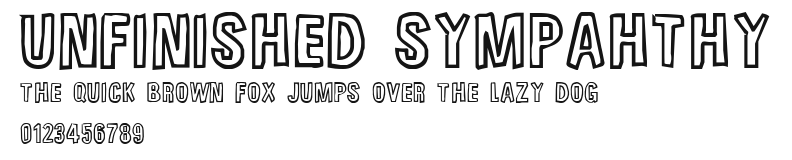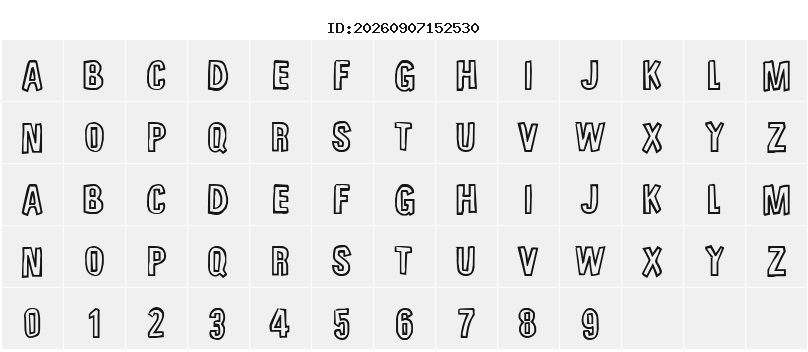
• Font Name: Unfinished Sympahthy
About Unfinished Sympahthy.ttf
Unfinished Sympahthy.ttf is a modern, elegant sans-serif font designed for ultimate readability and visual harmony. Perfect for branding, headlines, web design, and print materials.